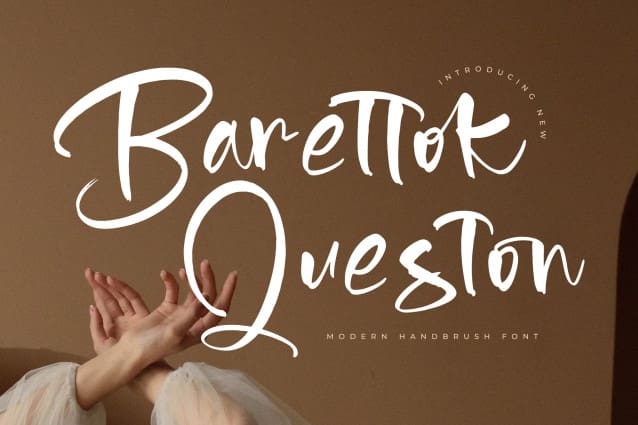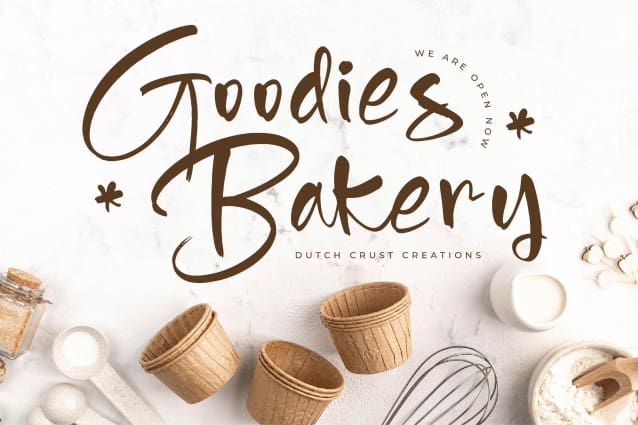
Barettok Queston Font
Barettok Queston Font – Modern Handbrush Font , from Letterena, is a Luxury Script font, suitable for any projects such as: logos, branding projects, homeware designs, product packaging, mugs, quotes, posters, shopping bags, t-shirts, book covers, name card, invitation cards, greeting cards, label, photography, watermark, special events, and all your other luxury and beautiful projects that need a Luxury serif taste.